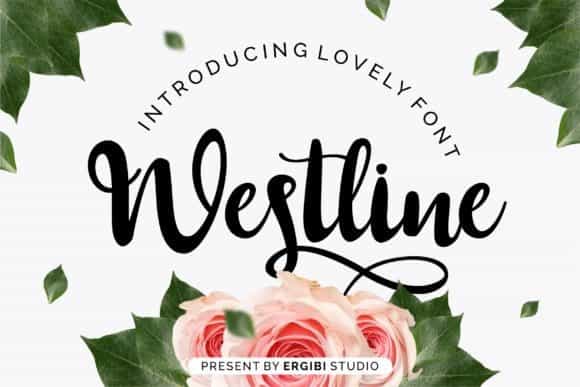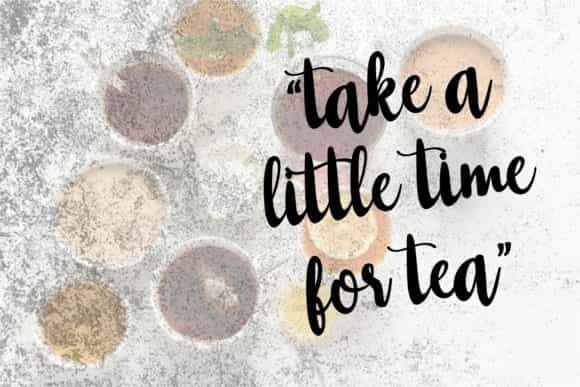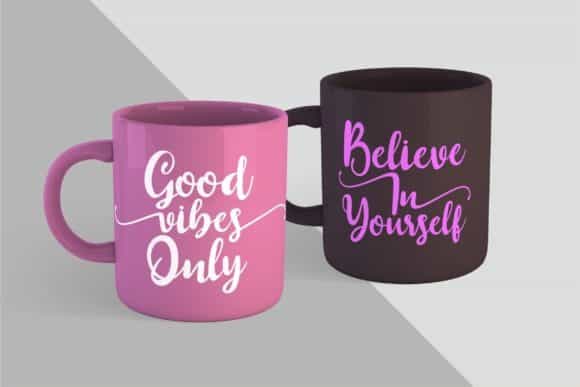
Westline is a calligraphy script font that was based on the traditional calligraphy and sign painting. This font is perfect for your next creative project, be it Logotype, printed quotes, invitations, cards, product packaging or headers. It can also be used on Letterhead and posters as well as in apparel design and labels.